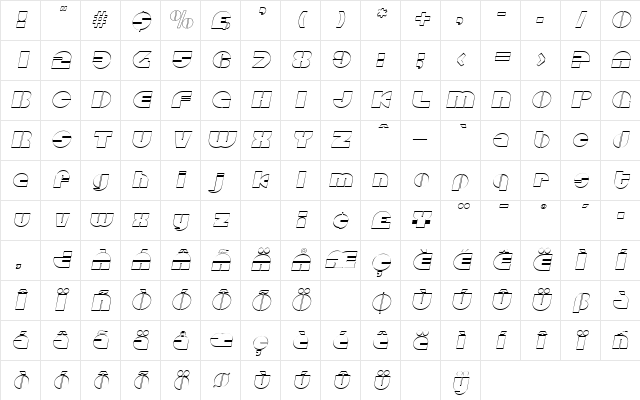
DiscoOutline Italic
Design Context for DiscoOutline
DiscoOutline is built around its visual character rather than neutral utility - its distinctive forms are designed to make an impression at display sizes. The slanted form adds forward momentum and visual energy.
Font Pairing: Pair with a clean neutral sans-serif for body copy to let DiscoOutline's character lead without overwhelming the composition.
Pro Tip: Use DiscoOutline exclusively at display sizes - it was designed to be seen, not read at length. Let a neutral companion handle body copy.